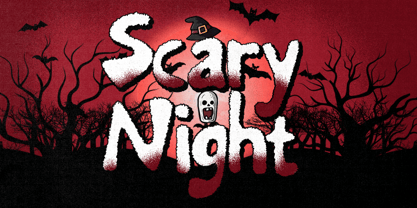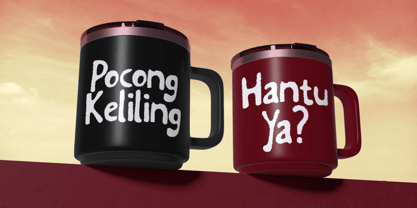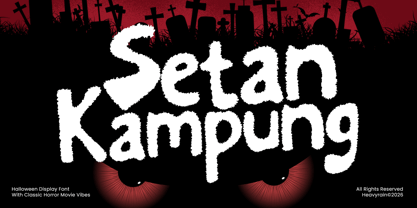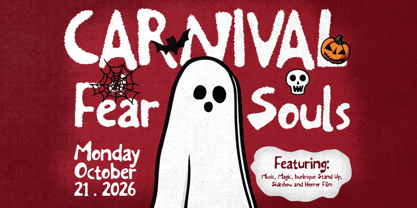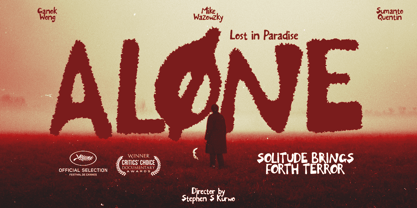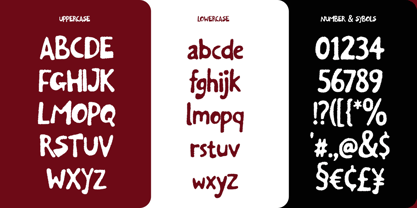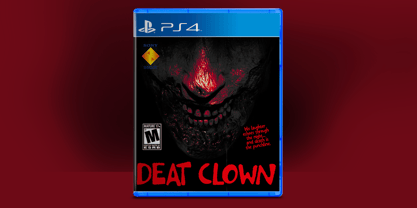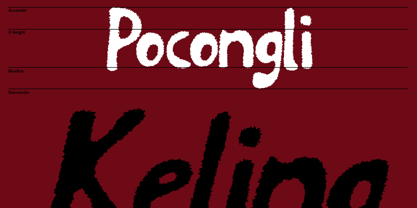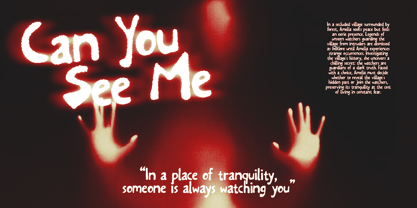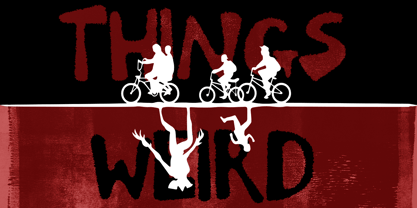
Setan Kampung
by Heavyrain
The Setan Kampung Font Family was designed by Devin Bagus Kurniawan and published by Heavyrain. Setan Kampung contains 2 styles and family package options. More about this family
Classic Horror Display Font
Setan Kampung is a raw and expressive horror display typeface inspired by classic horror cinema, haunted folklore, and the unsettling atmosphere of Halloween. Its rough edges, distressed texture, and irregular hand-drawn letterforms create a distinctive aesthetic that feels mysterious, gritty, and slightly eerie.
Rather than relying on perfectly constructed shapes, Setan Kampung embraces organic imperfections to create a more authentic handcrafted horror aesthetic. The result is a typeface with strong visual character, designed to capture attention in bold display applications.
Perfect for horror movie titles, Halloween campaigns, posters, album artwork, merchandise, book covers, haunted house promotions, and alternative branding, Setan Kampung brings a dark cinematic personality to every composition.
Its unconventional letterforms are especially effective when used at larger sizes, allowing the rough texture and expressive shapes to become an integral part of the overall artwork. Whether you're creating a terrifying Halloween campaign or a vintage-inspired horror poster, Setan Kampung adds a memorable dose of creepy character and classic horror atmosphere.